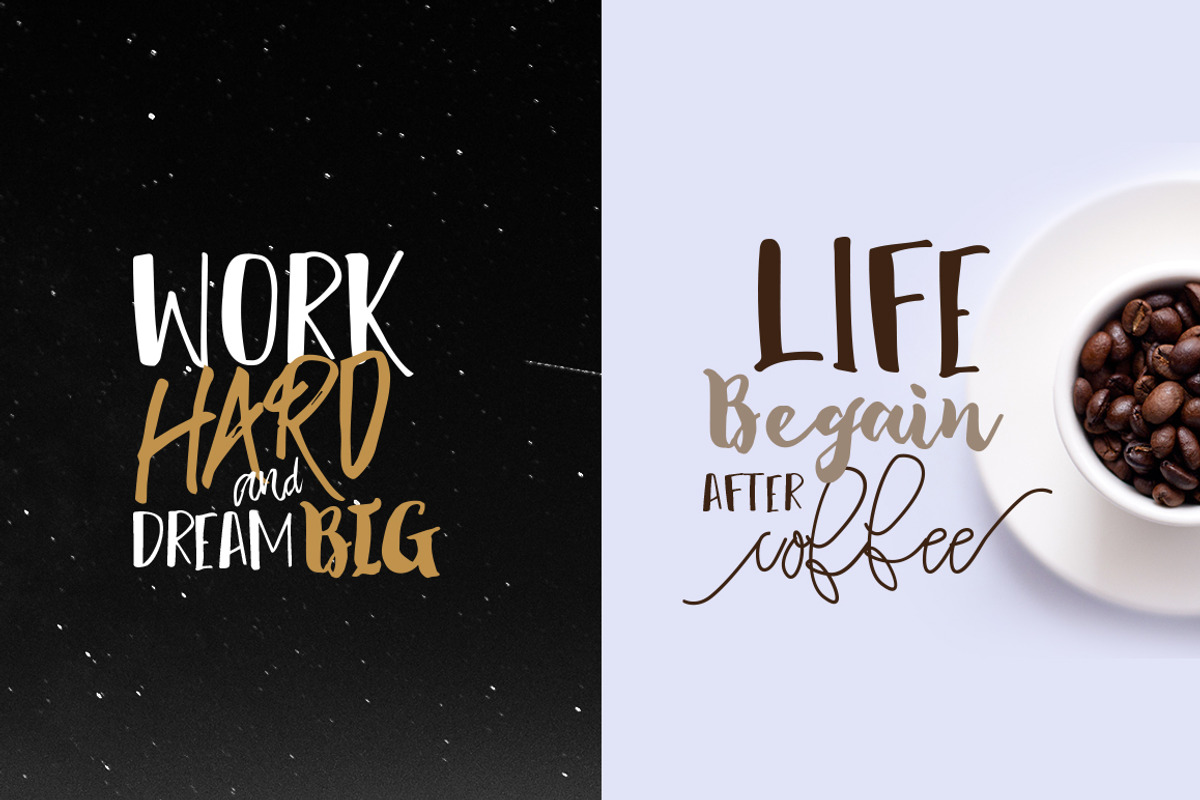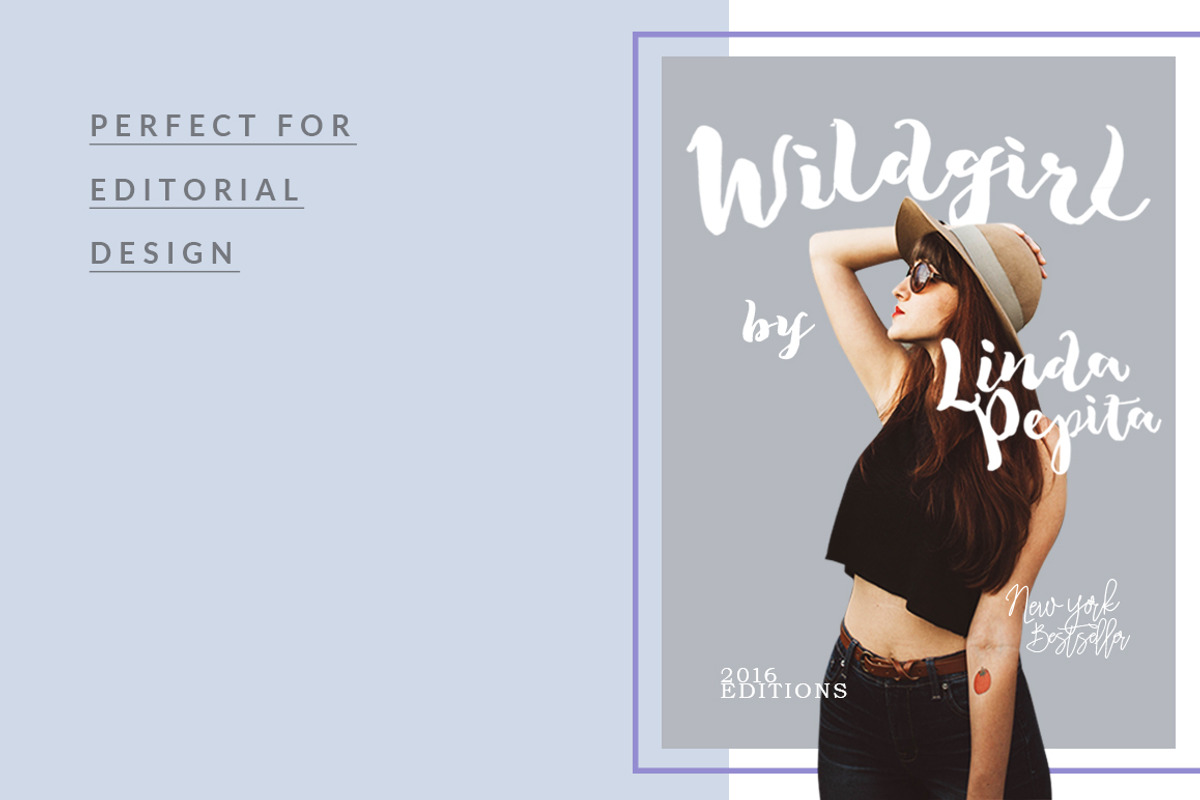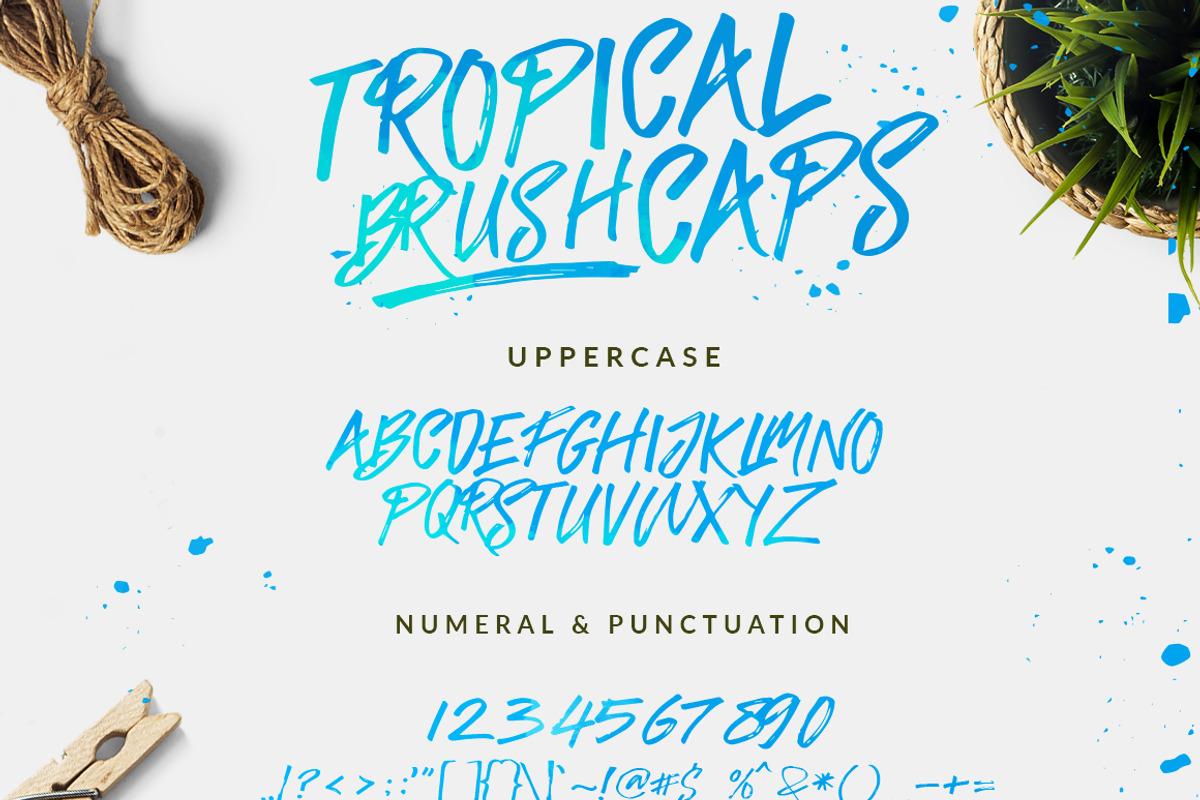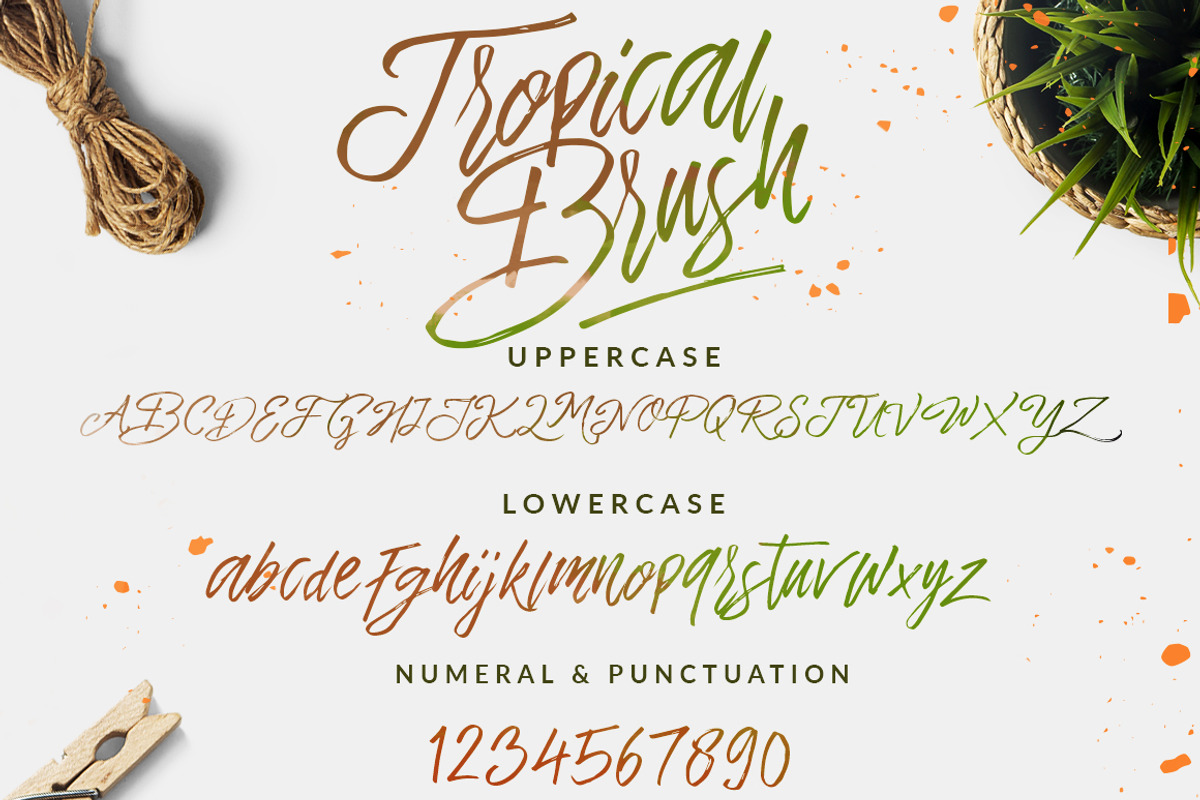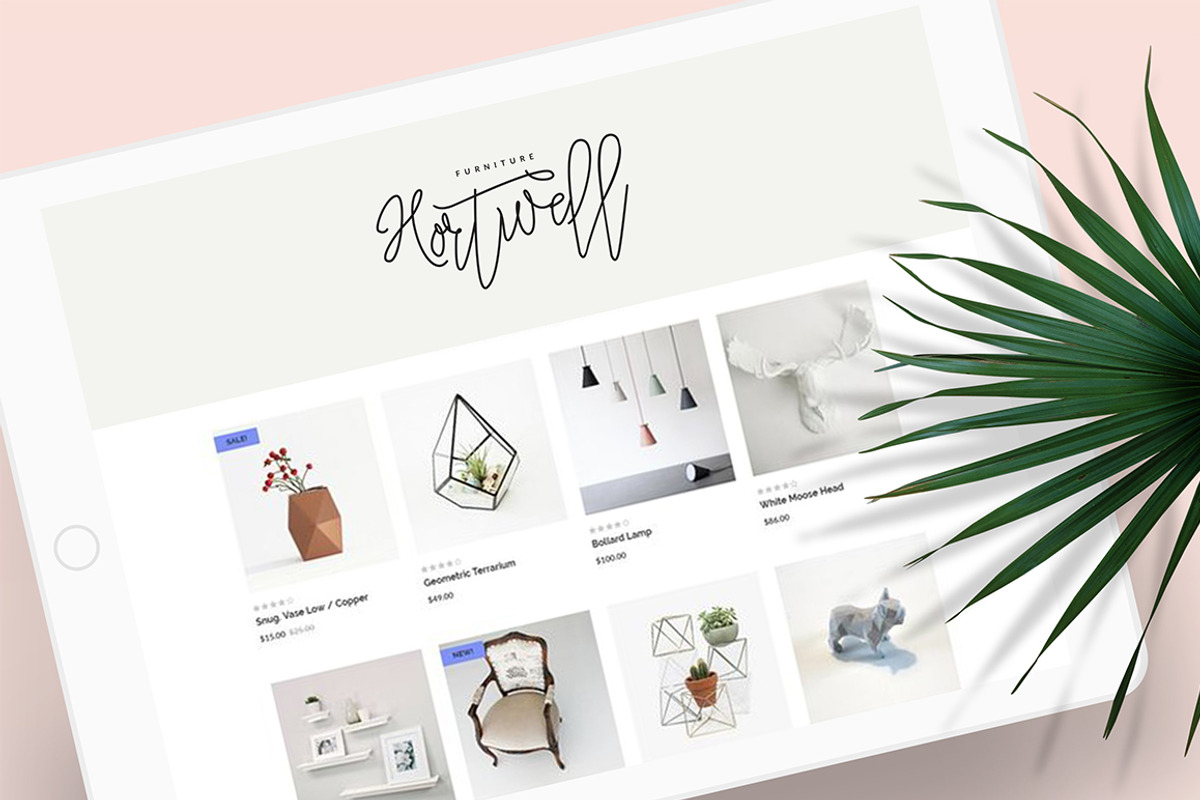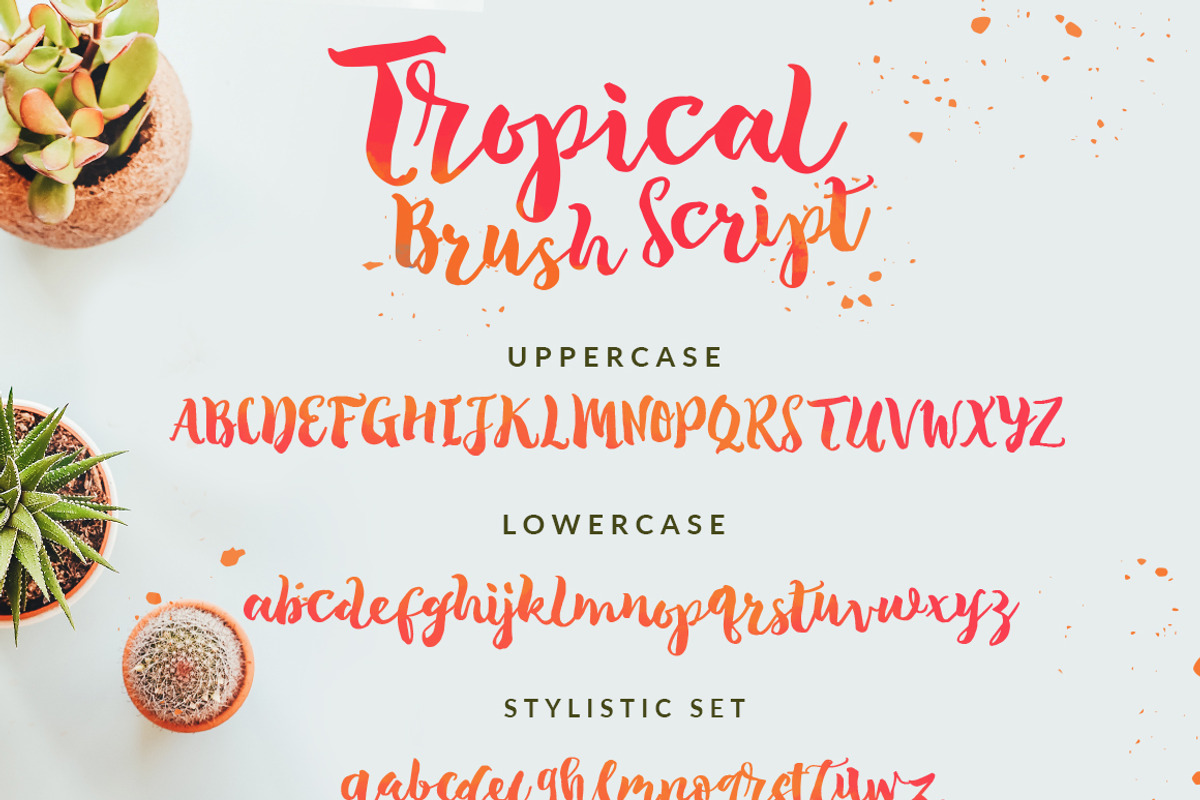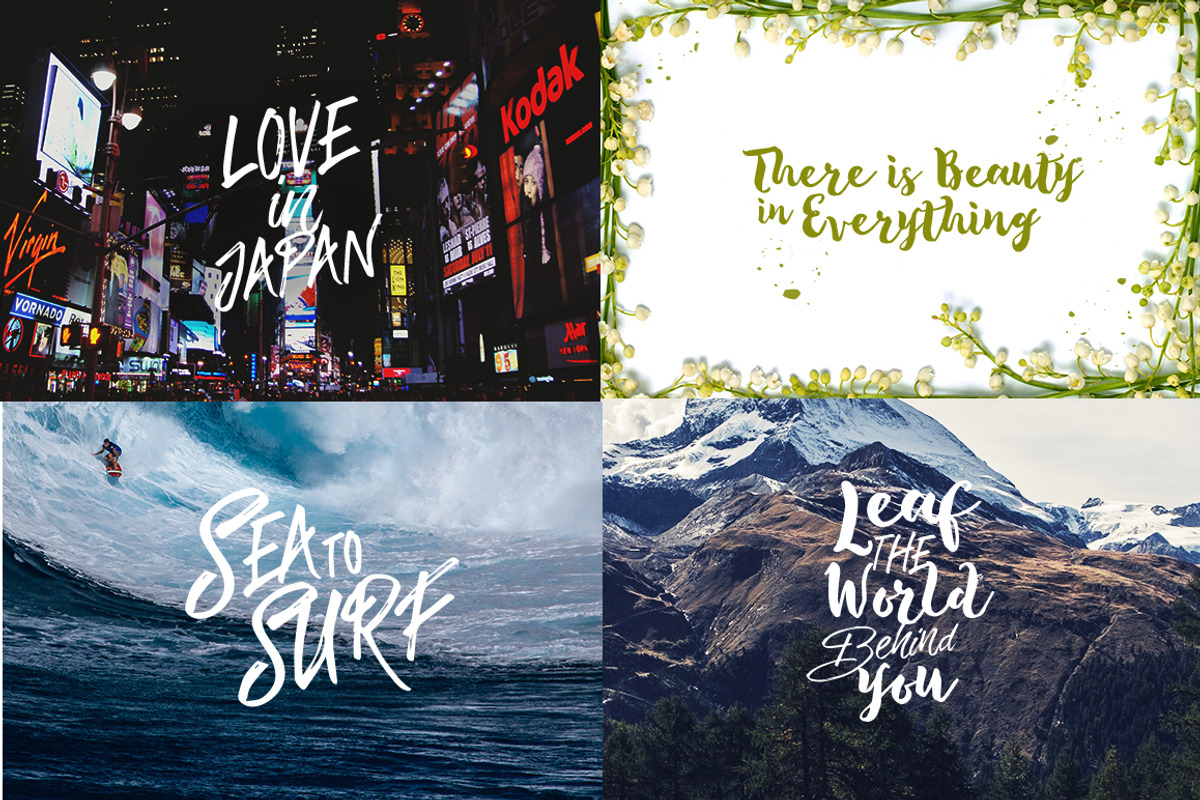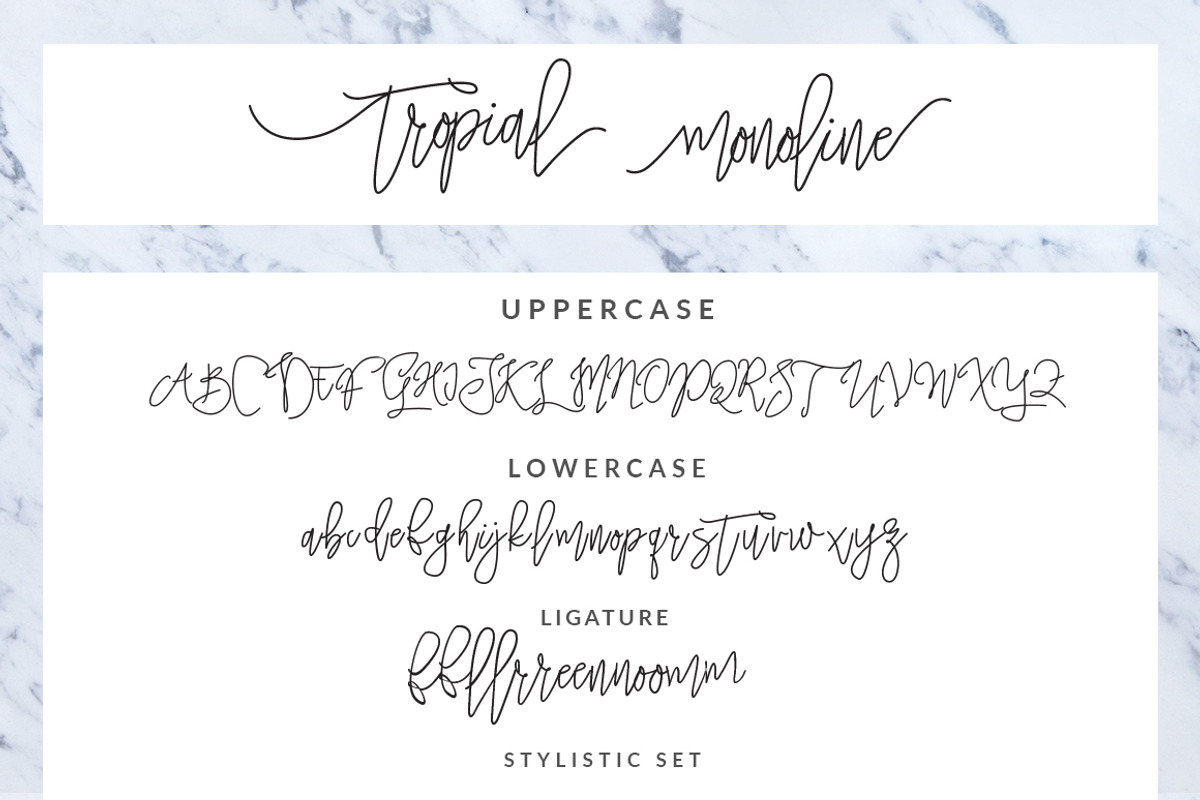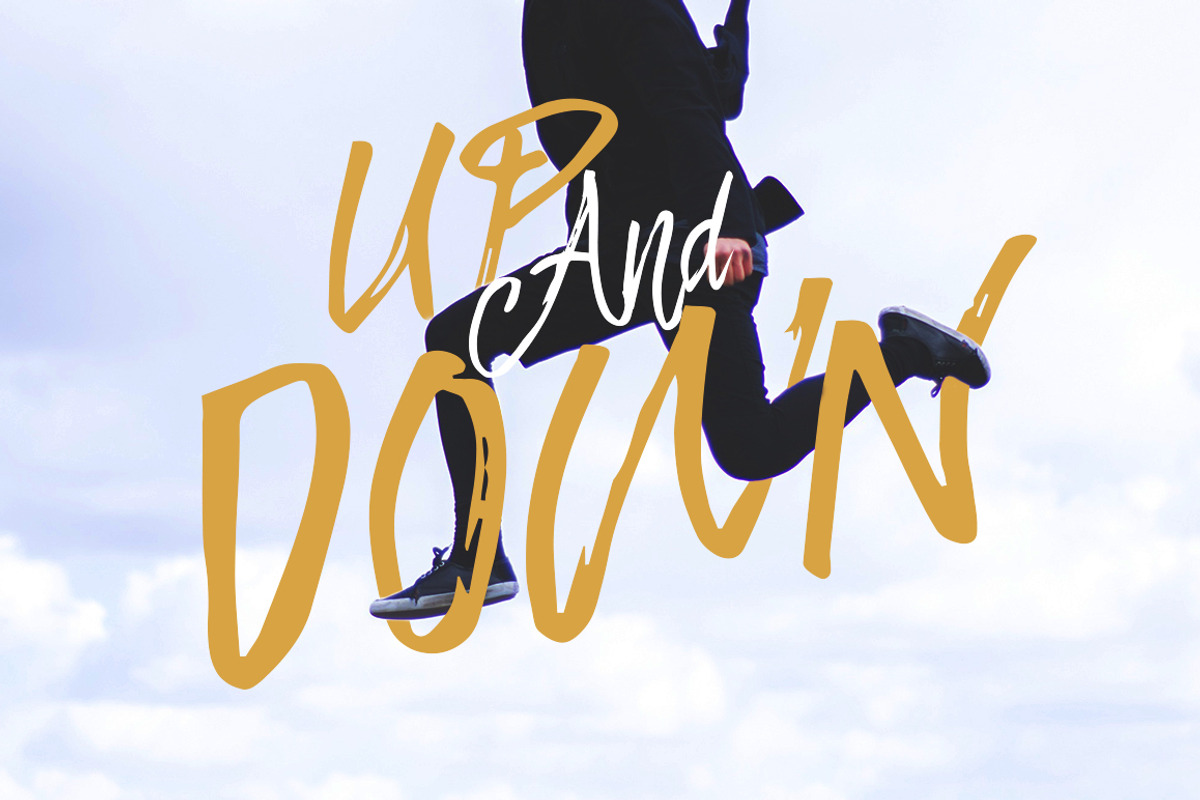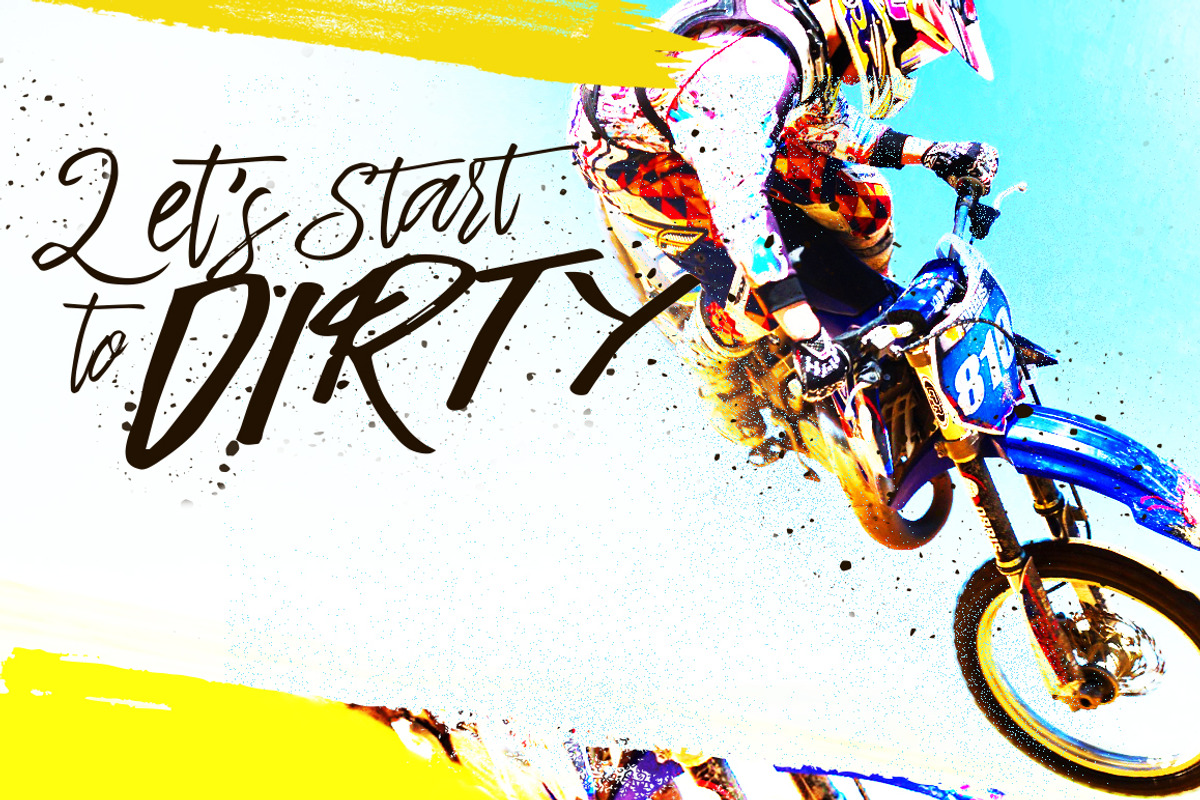
Introducing The Tropical 5 Fonts - with bonuses! ! A fontastic set of carefully-paired, handcrafted fonts, designed to work together in harmony to create awesome hand-lettered typographic designs. Awesome for designing book covers, film covers, apparel, cards, logos, posters, etc. Opentype features gives you more alternatives in designing.
Tropical Brush Script : A playful yet neat brush script with a bouncy baseline, and a bold presence.with 197 Glyphs. and some alternate.
Tropical Sans : A playful with sans formal font. with 167 Glyphs.
Tropical Hard Brush Script : A Rough Dry Brush Script , with a casual character, but fancy attitude. with 177 Glyphs and more ligature.
Tropical Hard Brush Caps : A Rough Dry Brush All Caps with 204 Glyphs and more Ligature.
Tropical Monoline Script : smooth monoline script , with playful curvature and delightful end swashes. with 287 Glyphs More Opentype Feature : Ligature, Stylistic Set and More Alternate.